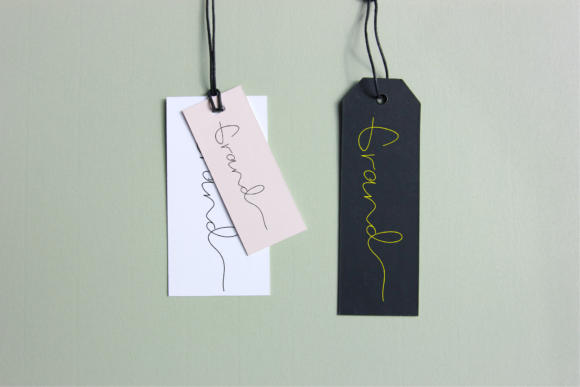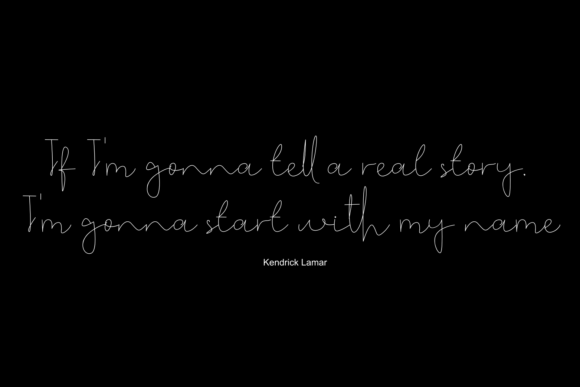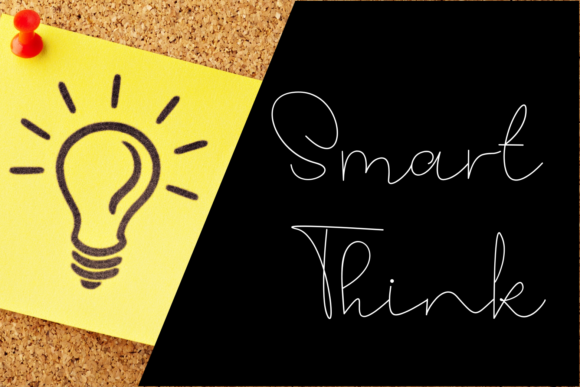
Bratteanz Font: Elevate Your Designs with Elegance and Class
In the world of typography, fonts play a crucial role in conveying the tone and aesthetic of a design. For designers and crafters seeking to add a touch of sophistication and refinement to their work, the Bratteanz Font is an excellent choice. This stunning script font is characterized by its thin lettering and delicate strokes, exuding elegance and class in every curve and line.
The Beauty of Bratteanz Font
Bratteanz is a carefully crafted font, designed to meet the needs of designers who require a beautiful and refreshing look for their designs. Its unique blend of classic script elements and modern sensibilities makes it an ideal choice for a wide range of projects, from wedding invitations and branding materials to packaging and advertising. The font’s intricate details and flowing lines are sure to captivate audiences and leave a lasting impression.
One of the standout features of Bratteanz Font is its PUA (Private Use Area) encoding. This means that users can access all the glyphs and swashes with ease, allowing for greater flexibility and creativity in their designs. PUA encoding enables designers to tap into the font’s full potential, effortlessly incorporating alternate characters, ligatures, and ornaments to add depth and visual interest to their work.
Bratteanz Font is an excellent choice for designers and crafters working on a variety of projects, including:
- Wedding and Event Stationery: Add a touch of romance and sophistication to wedding invitations, save-the-dates, and other event materials.
- Branding and Packaging: Elevate your brand’s visual identity with a font that exudes elegance and refinement.
- Advertising and Marketing: Use Bratteanz to create eye-catching ads, brochures, and marketing materials that stand out from the crowd.
- Digital and Print Media: Incorporate Bratteanz into your digital and print designs, such as magazines, blogs, and social media graphics.
Tips for Using Bratteanz Font
To get the most out of Bratteanz Font, consider the following tips:
- Pair with contrasting fonts: Combine Bratteanz with bold, sans-serif fonts to create visual interest and hierarchy.
- Experiment with colors: Try pairing Bratteanz with pastel shades, metallic colors, or rich jewel tones to add depth and luxury to your designs.
- Play with swashes and glyphs: Take advantage of Bratteanz’s PUA encoding to add unique swashes, ligatures, and ornaments to your text.